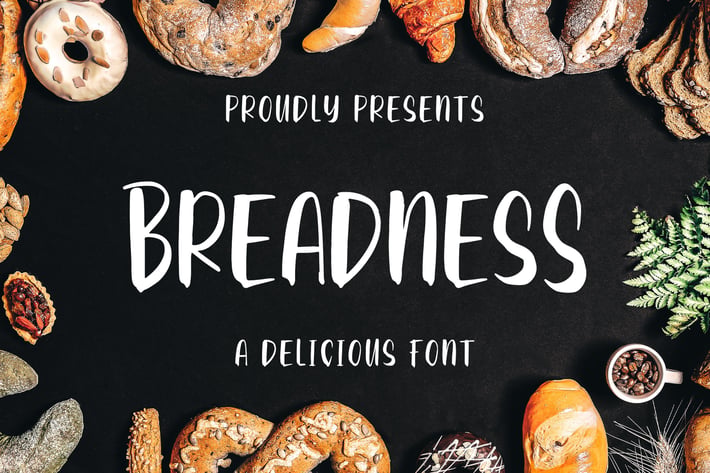
Breadness - a Delicious Font
Introducing of our new product the name is Breadness a Delicious Font. Breadness good for logotype, label, badge, headline, signature, packaging and any more.
MULTILINGUAL ACCENT :
ŽžŠŒšŸÀÁÂÃÄÅÆÇÈÉÊËÌÍÎÏÐÑÒÓÔÕÖØÙÚÛÜÝßàáâãäåæçèéêëìíîïñòóôõöøùúûüýÿ